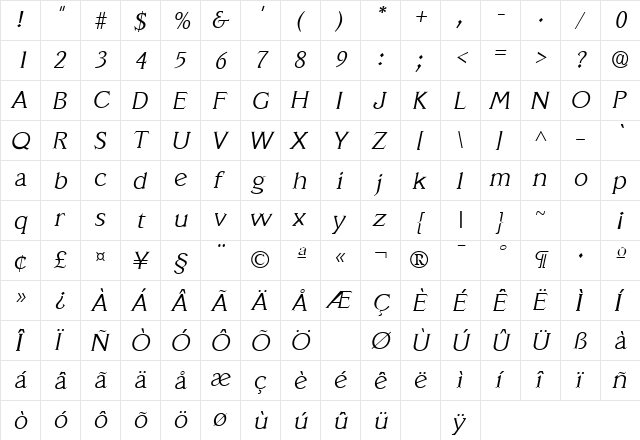
VeracruzLH Italic
Design Context for VeracruzLH Typeface
VeracruzLH takes a measured approach to typography — its balanced proportions and neutral character make it a reliable workhorse for both digital and print work. The slanted form adds forward momentum and visual energy.
Pro Tip: Try VeracruzLH for annotation and caption copy alongside an upright companion — the contrast in angle creates a dynamic but ordered typographic system.